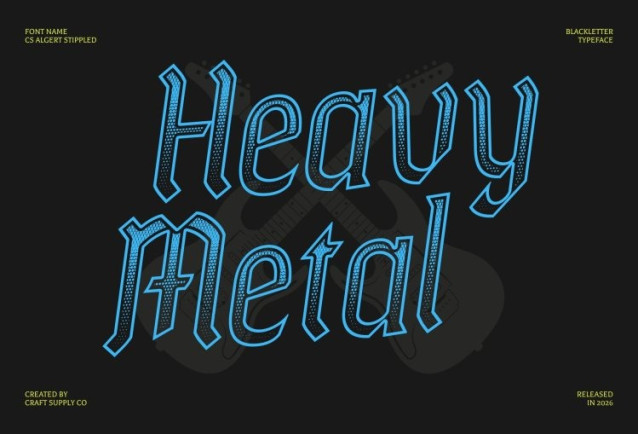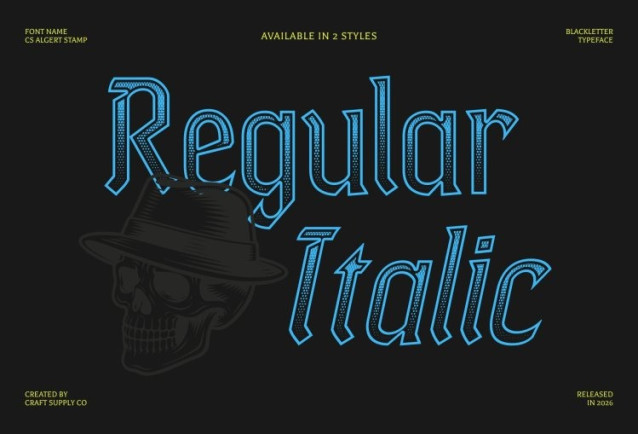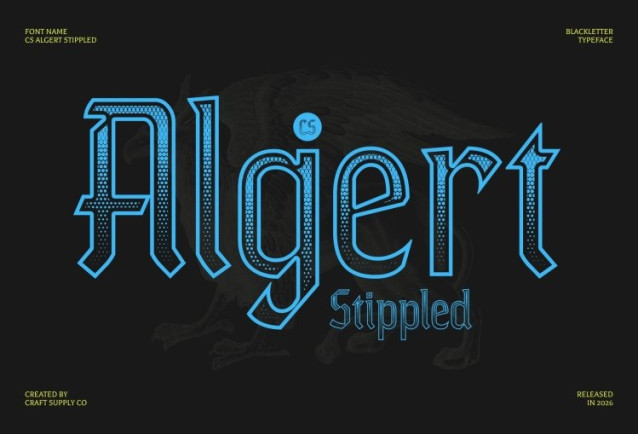
CS Algert Stippled Font This reimagines classic Blackletter typography through a modern lens, enriched with a dense stippled texture inspired by traditional ink-dot and stippling illustration techniques. The fusion of ornate historical forms with contemporary structure and dotwork detailing creates a font that feels dramatic, artistic, and unmistakably refined.
Ornate Letterforms with Textured Depth
The elaborate Blackletter shapes are enhanced by a carefully applied stippled surface, adding depth, contrast, and a handcrafted character to each letter. This dotted texture softens the sharpness of the forms while preserving their authority, resulting in a high-impact visual style that feels both bold and sophisticated.
Striking Presence for Luxury and Themed Design
this is ideal for projects that demand visual richness and character. From luxury branding and premium packaging to editorial headlines, posters, and themed event materials, the combination of ornate Blackletter structure and stippled detailing delivers a powerful, memorable aesthetic rooted in tradition yet relevant to modern design.
A Balance of Historical Grandeur and Modern Expression
By blending traditional Blackletter elegance with contemporary refinement and stippled texture, achieves a unique typographic voice. It maintains the historic essence of classic Gothic lettering while introducing a modern, artistic flair perfect for designers seeking a bold statement with depth, authenticity, and timeless appeal